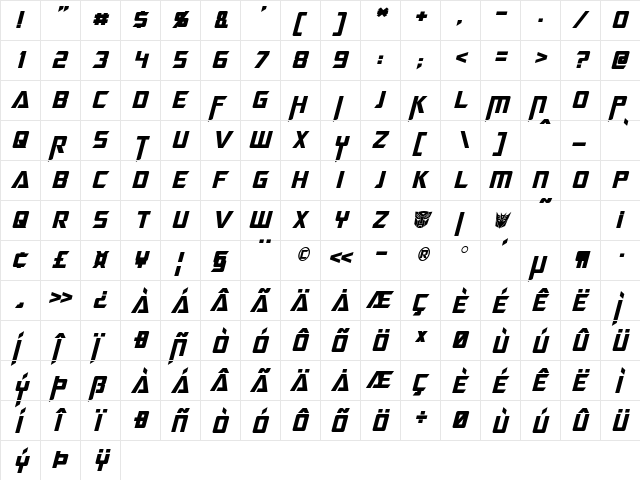
Megatron Italic
Italic · Neale Davidson Neale Davidson ·
DesignerNeale Davidson
Design Context for Megatron Typeface
Megatron is a composed and adaptable typeface that performs quietly and consistently across a wide range of design contexts. Its italic angle brings a sense of urgency and motion to the letterforms.
Pro Tip: Try Megatron for annotation and caption copy alongside an upright companion — the contrast in angle creates a dynamic but ordered typographic system.